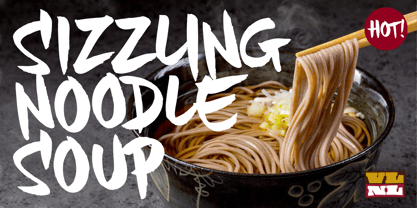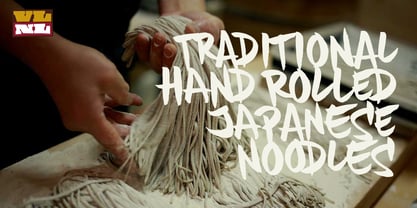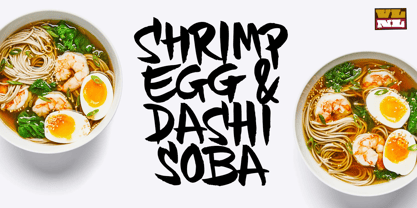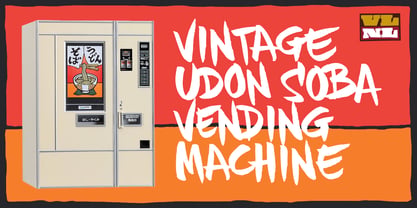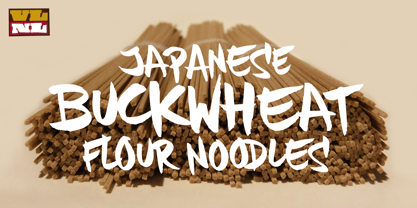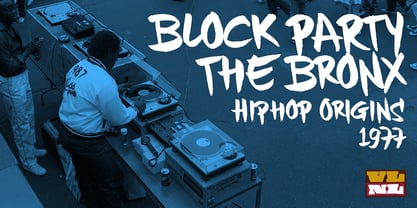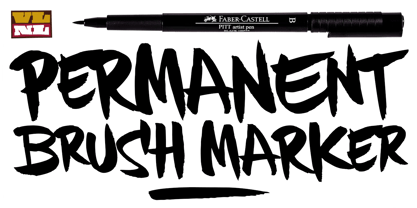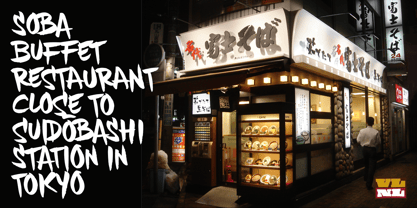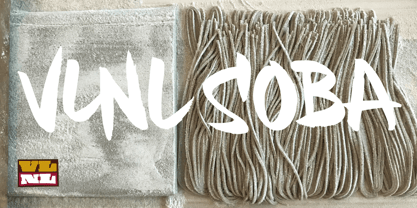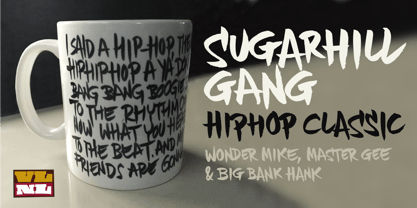
VLNL Soba
VLNL Soba is DBXL’s all-caps brush stroke handwriting font. In 2015 Donald Beekman received a brush marker pen as a present. While trying out the Faber Castell PITT, Rapper’s Delight by Sugar Hill Gang was playing in the studio and delivered a suitable text to write. DBXL was pleased with the result and put the text on a coffee mug. Not much later it was turned into a font and became part of the brand identity of Amsterdam hiphop dance company ISH. VLNL Soba contains three sets of characters, that are automatically alternated through Open Type (Contextual Alternates feature programmed by Erik van Blokland / Letterror). This makes VLNL Soba look really handwritten, with a very limited number of repeated characters. VLNL Soba has a distinct Asian flavor, but can be deployed in lots of designs. DBXL used it for hiphop and dance music posters and flyers. But Soba is also very suitable for ramen shops, hipster coffee bars, restaurant menus, logos, headlines, you name it.